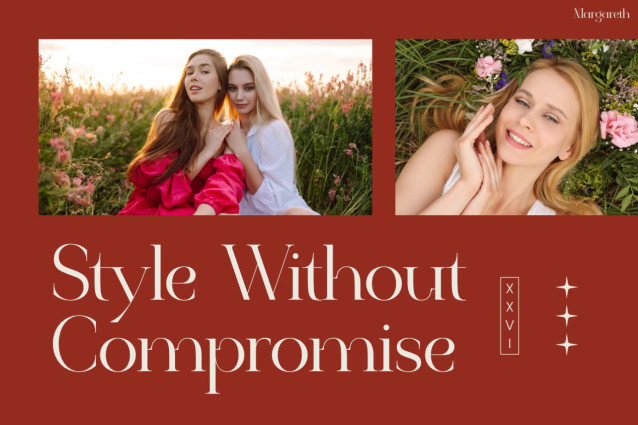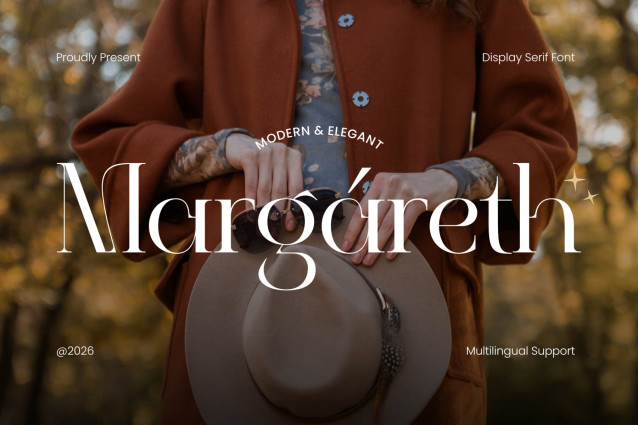
MARGARETH Font
Instagram Font MARGARETH is a graceful modern serif typeface made for elegance, sophistication, and premium charm. Its refined curves and stylish letterforms create a luxurious and polished look. Moreover, the high-contrast strokes help every word stand out beautifully. Its classic yet modern balance makes designs feel clean and unforgettable. Therefore, it is a strong choice for premium visual storytelling.
MARGARETH Font delivers a premium identity with smooth serif details and beautifully crafted characters. In addition, its multilingual support helps brands communicate globally with style. Whether used for headlines, packaging, fashion promotions, or social media posts, this font adds a soft luxury touch. Furthermore, it makes every layout feel more polished and professional. As a result, your audience quickly notices the premium quality of your brand.